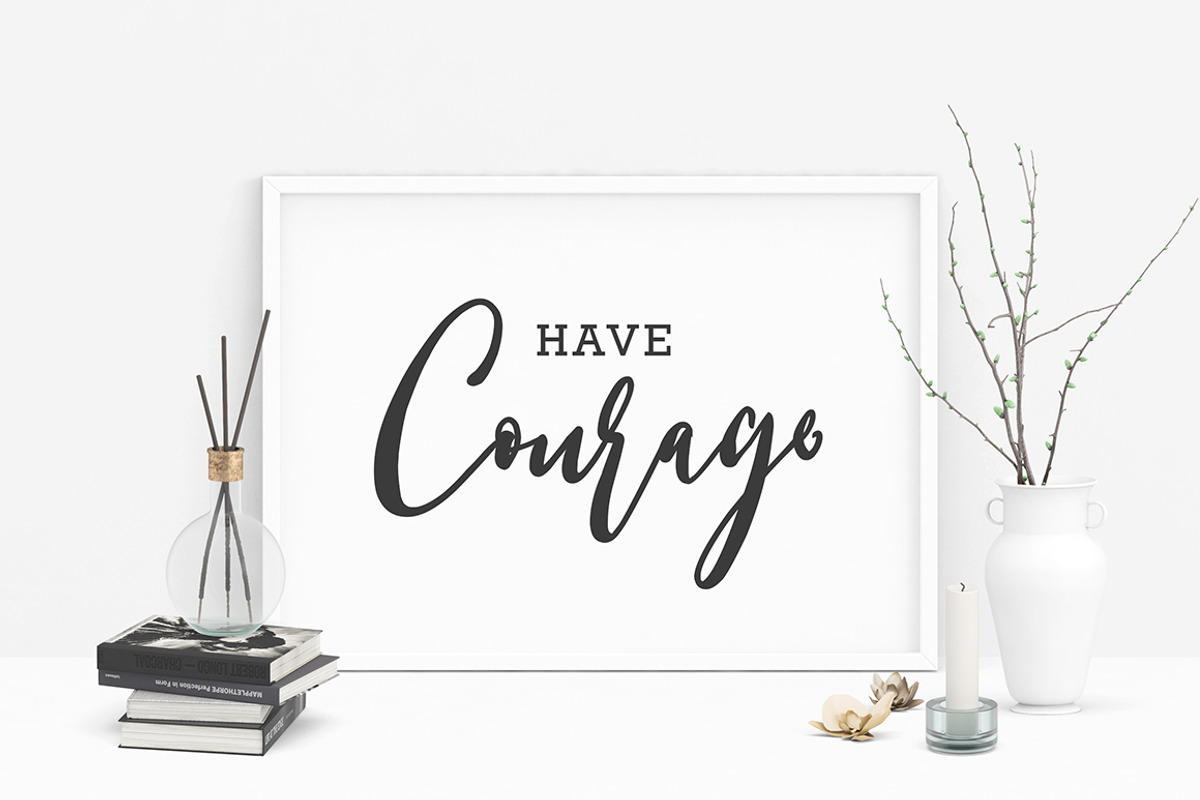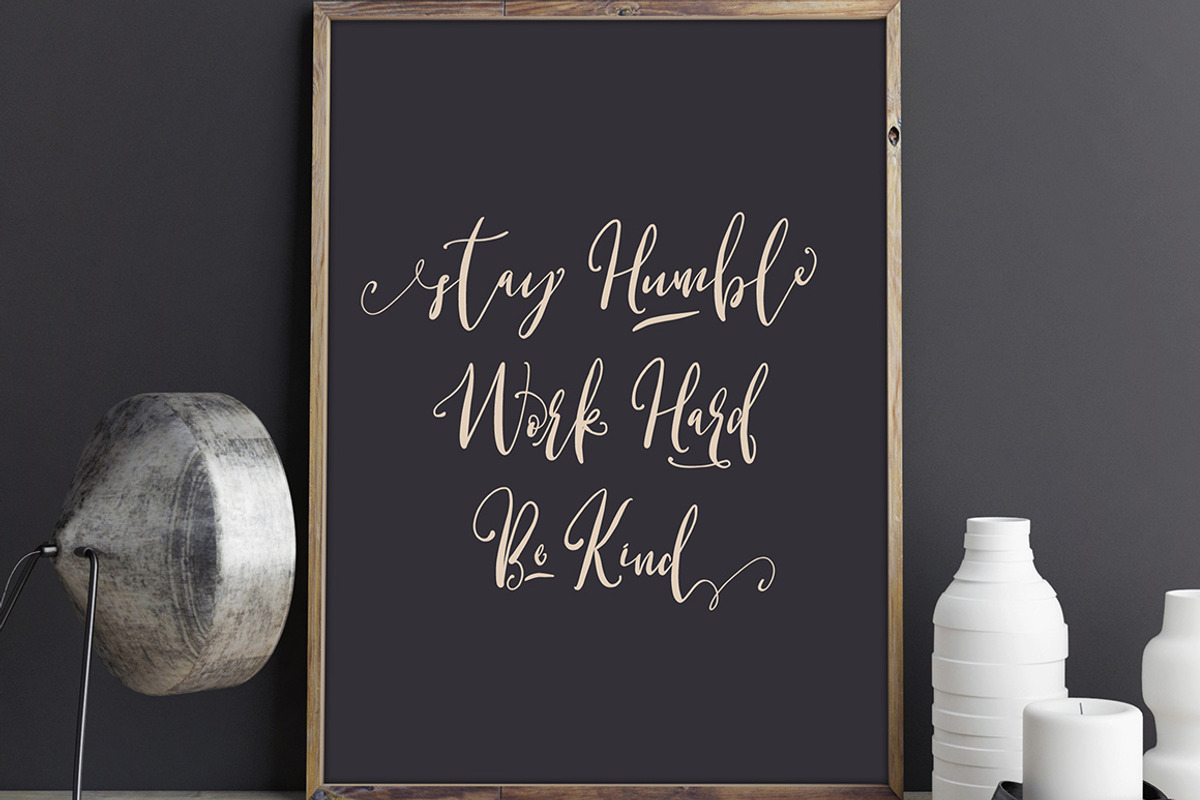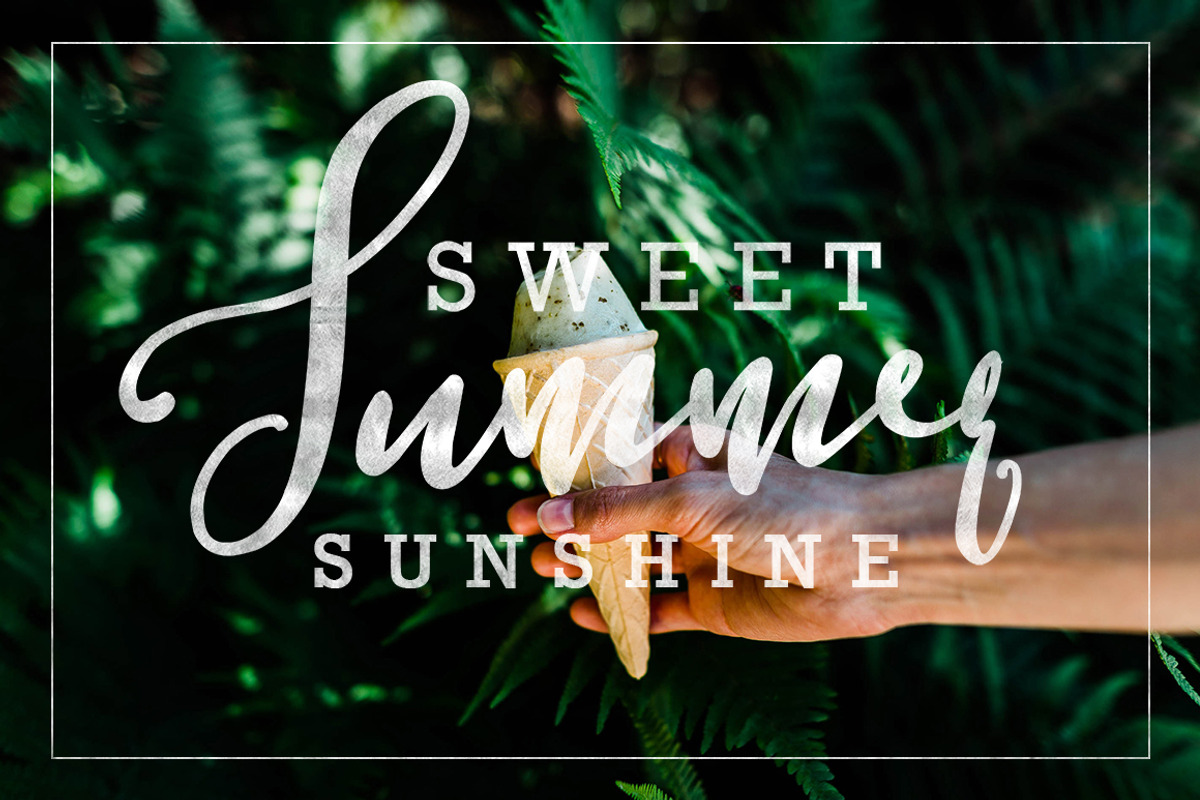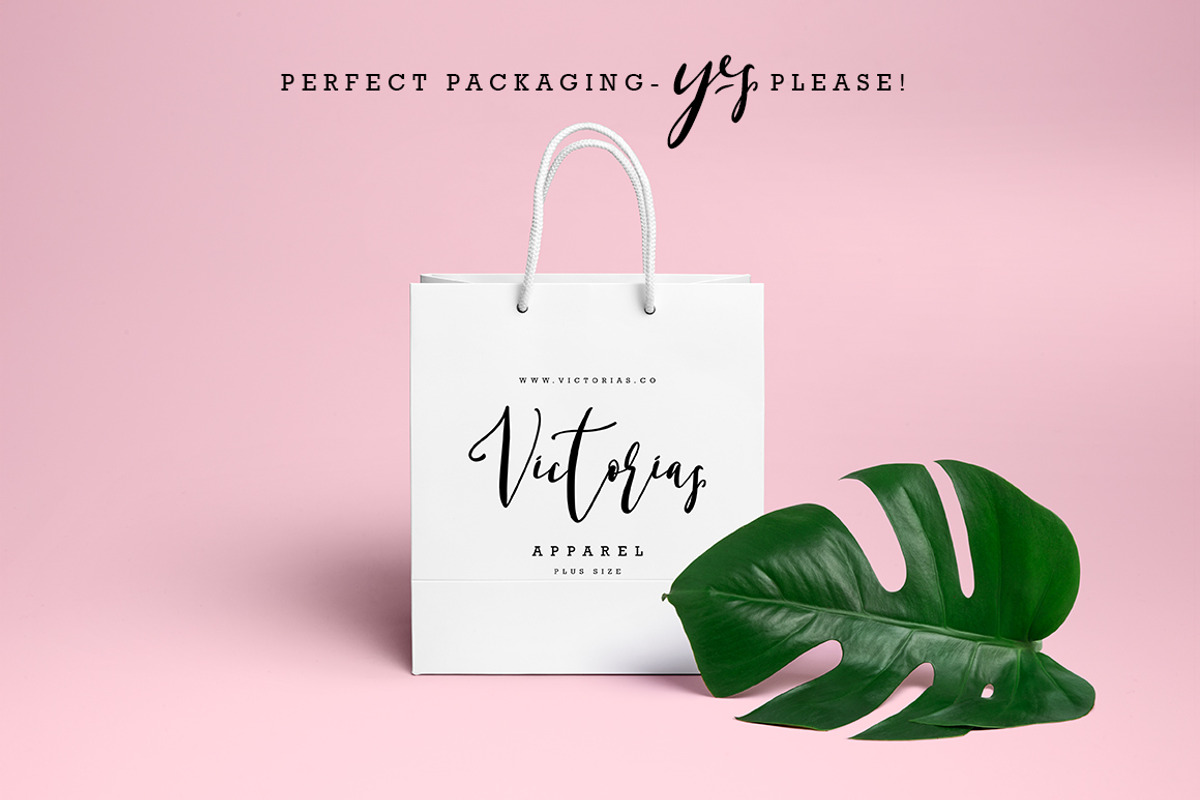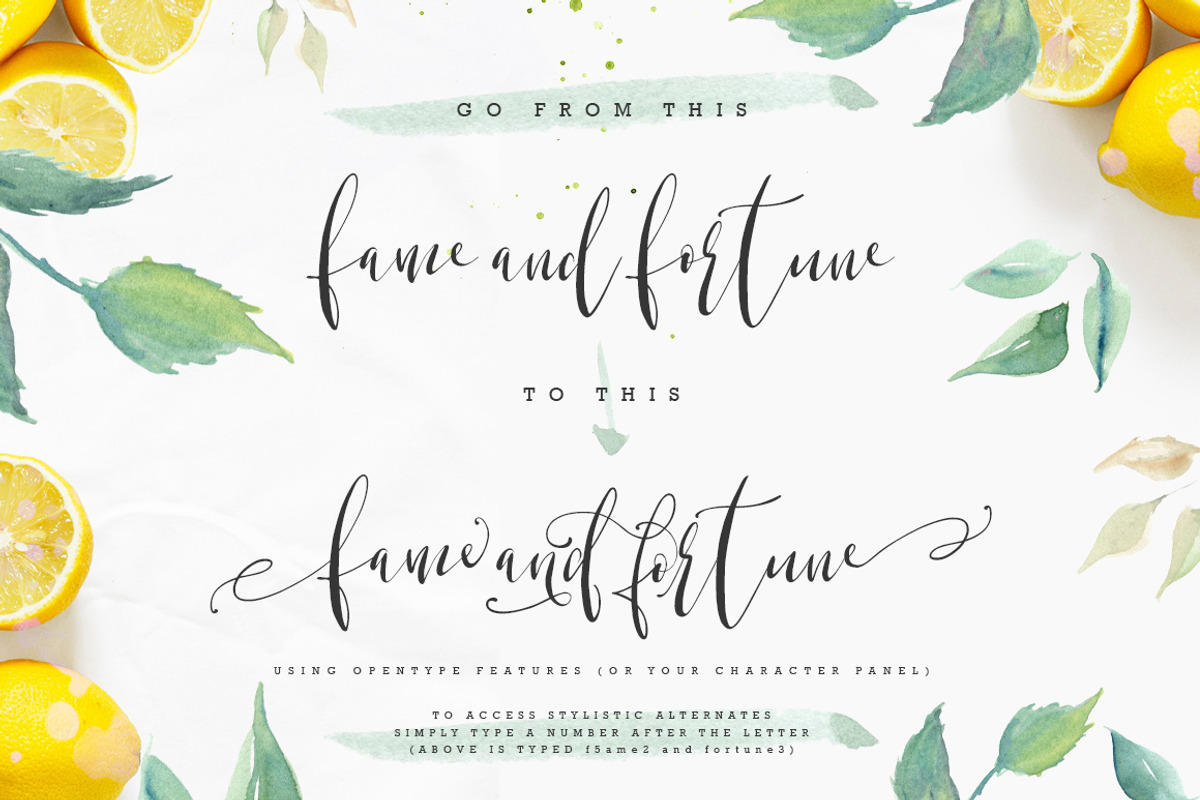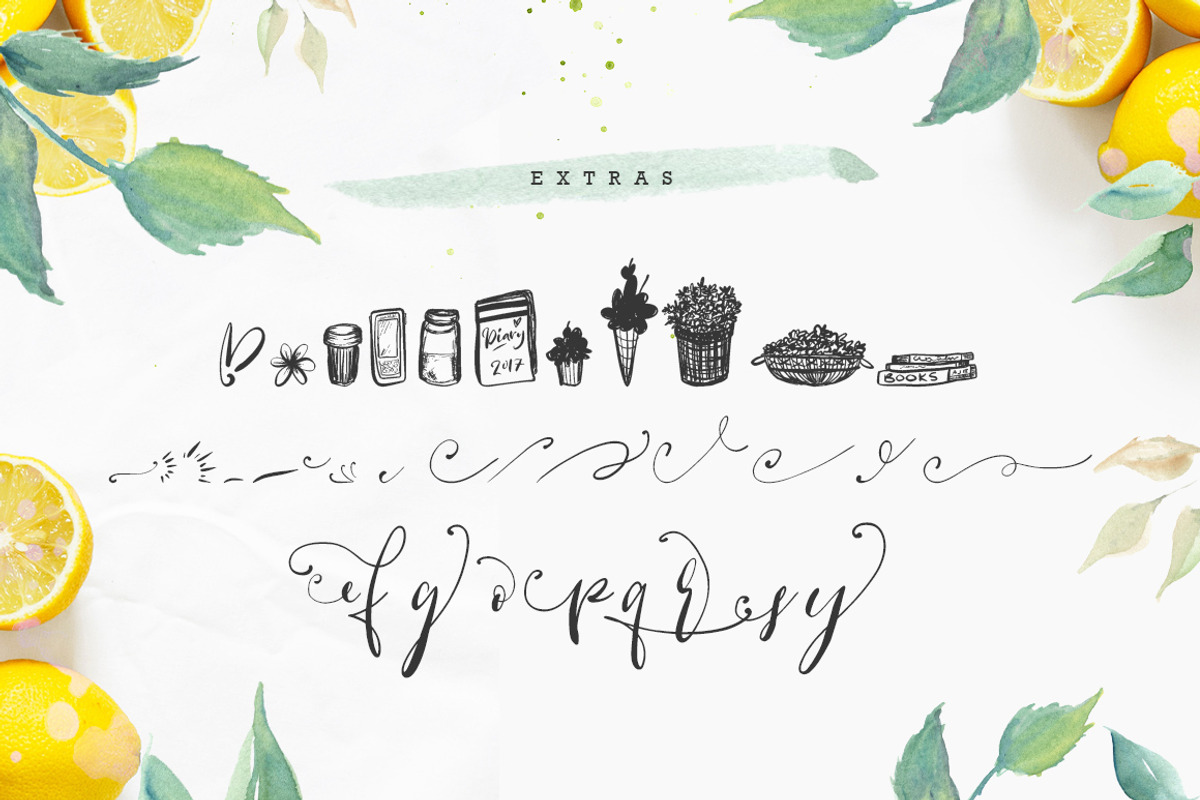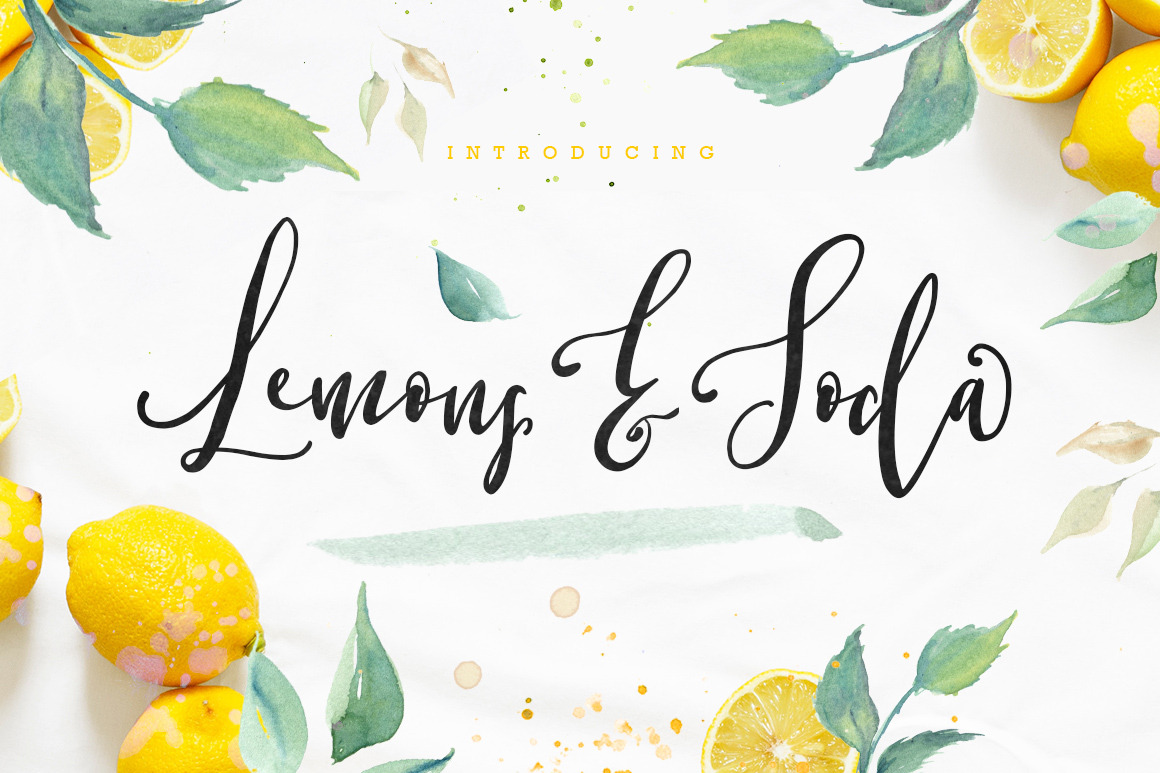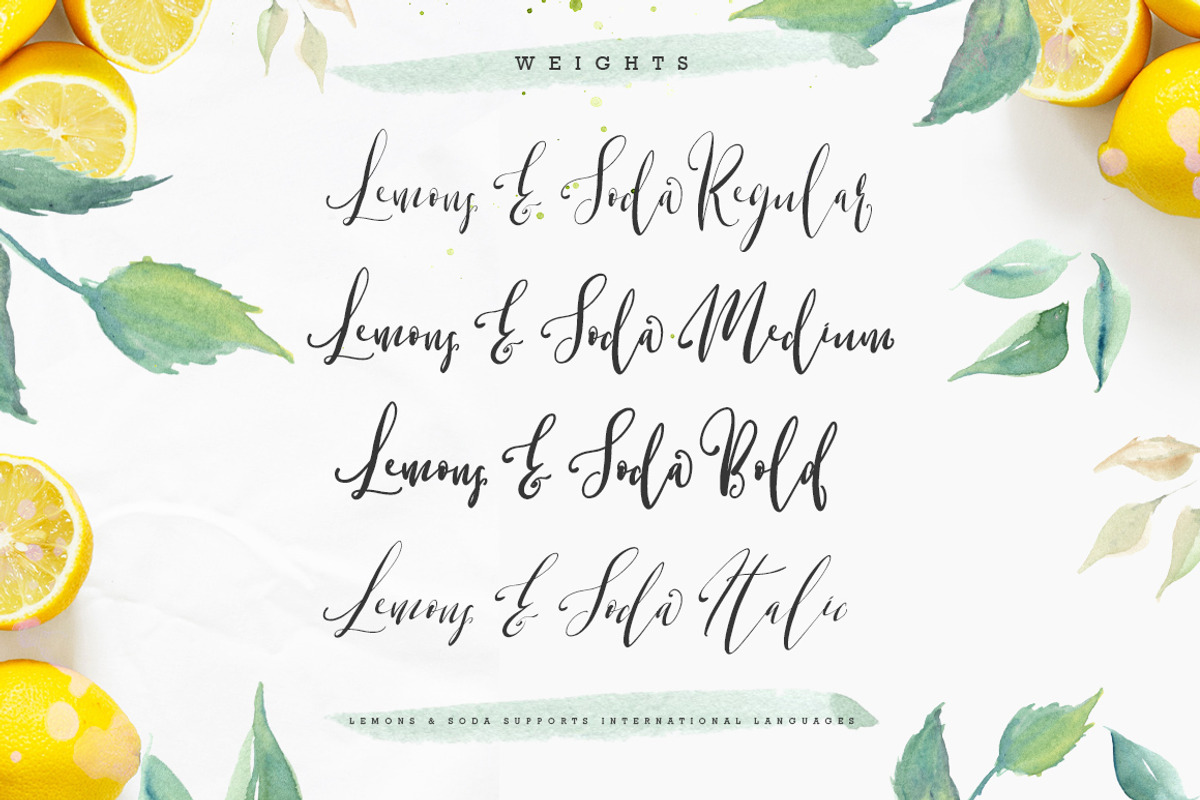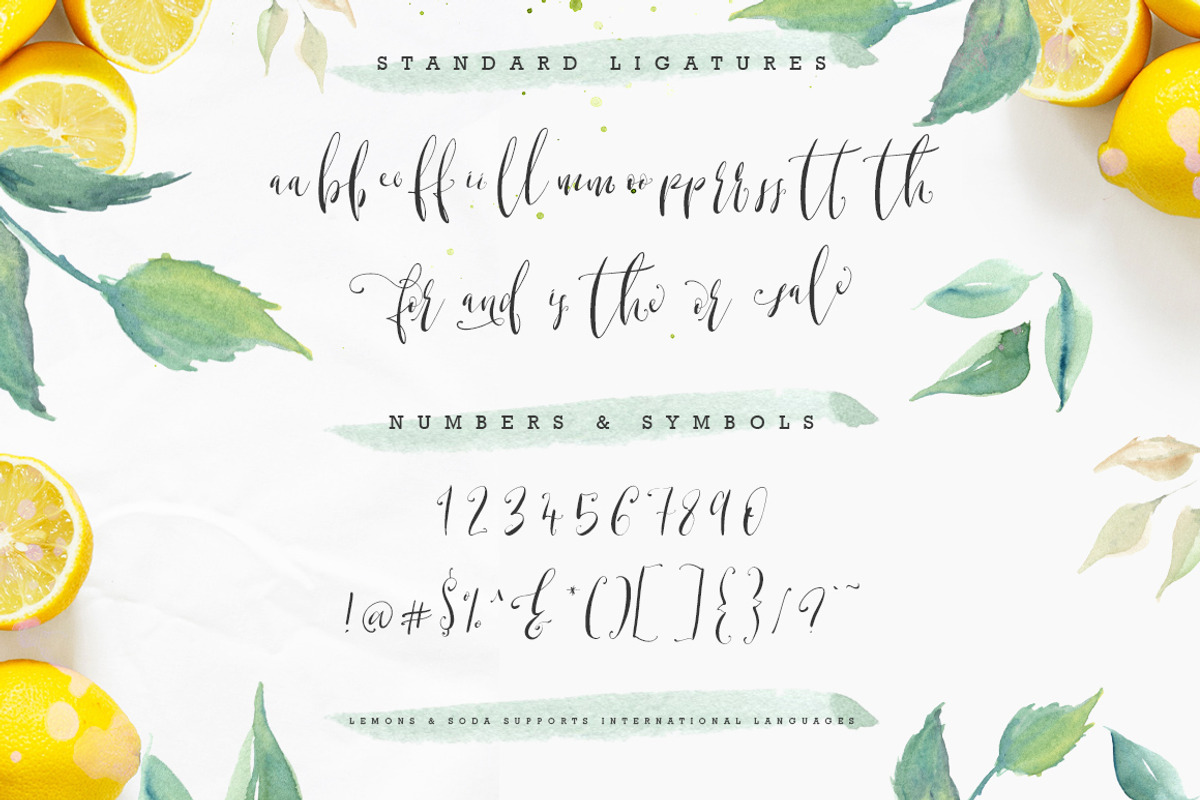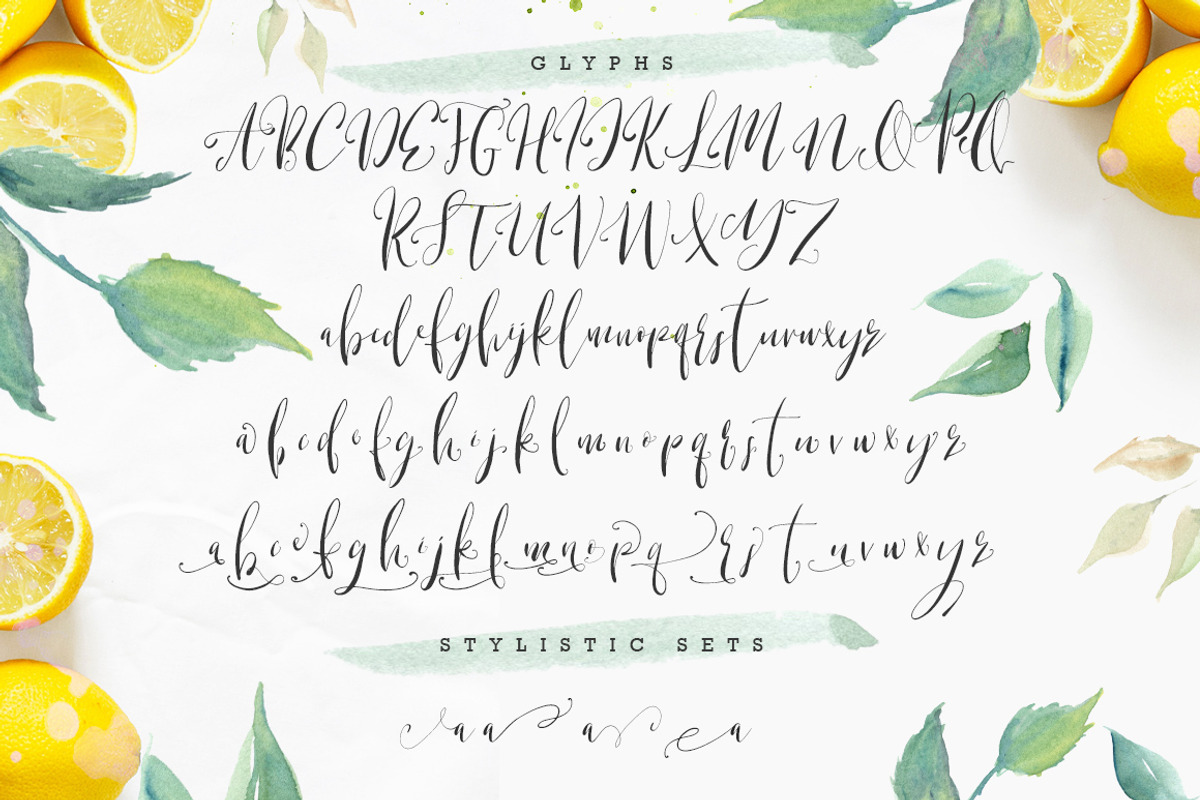
Lemons & Soda Script Font
NEW Introducing Lemons & Soda - a modern calligraphy scrip font!
Tall with a fun vibe and oodles of character, Lemons & Soda is the perfect font for branding, invites, logos, quotes, posters, packaging, and so much more!
Lemons & Soda comes in Regular, Medium, Bold and Italic, plus Extras.
The extras fun hand drawn illustrations, plus dashes, swashes, slashes and bursts! So much fun!
There are 5 sets of lowercase letters, and all can be accessed using a number after a letter - so a1, a2, a3, a4 or a5. You must have Contextual Alternates activated in your program for this to work (using OpenType)
There is also a full set of letters specifically for ending words, and will fill in automatically when OpenType is enabled and the Contextual Alternates is activated.
If you don't have OpenType features in your program, you can still access the alternates / stylistic sets using your Character Panel.
Lemon and Soda supports international languages.